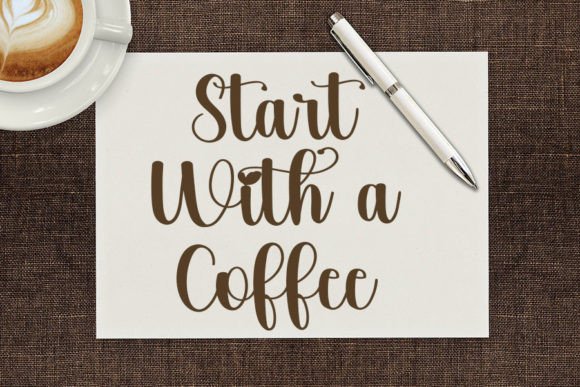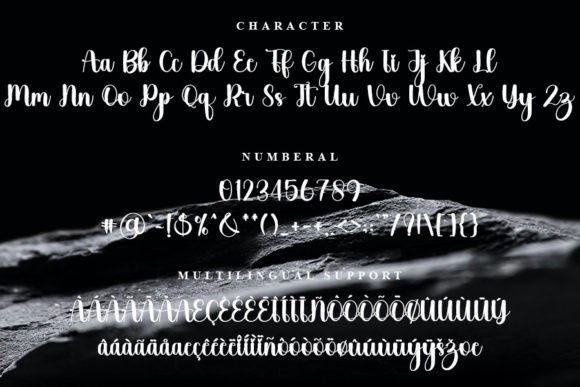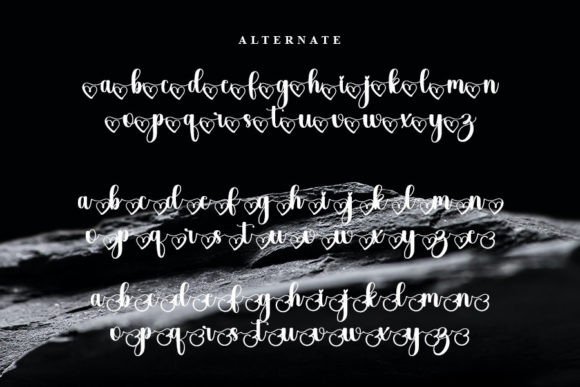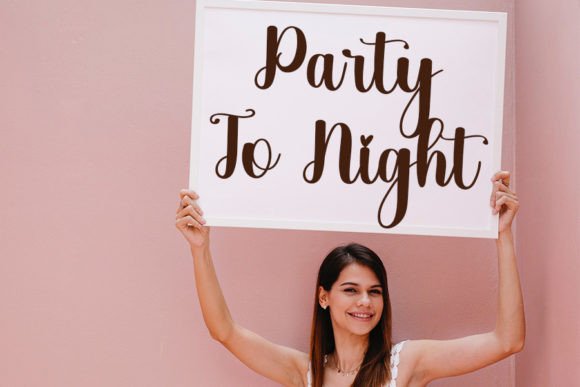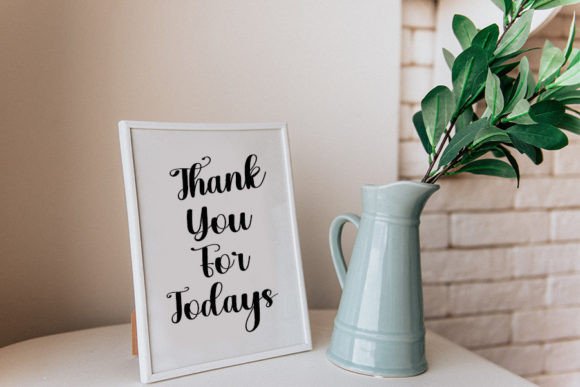
Introducing Clubing Font: Elevate Your Designs with Elegance and Class
In the world of typography, fonts play a crucial role in conveying the tone and personality of a design. For designers and crafters seeking to add a touch of sophistication and elegance to their projects, Clubing Font is an excellent choice. This trendy handwritten font boasts a contemporary atmosphere and impeccable form, inspired by timeless classic calligraphy.
The Inspiration Behind Clubing Font
Clubing Font draws inspiration from traditional calligraphy, with a modern twist. The result is a font that exudes elegance and class, perfect for designers looking to create stunning visual content. The font’s design is characterized by its flowing lines, precise letterforms, and a keen attention to detail, making it an excellent addition to any design project.
Key Features of Clubing Font
- Trendy and Contemporary: Clubing Font features a modern design that will make your projects stand out in a crowded digital landscape.
- Elegant and Classy: With its roots in classic calligraphy, Clubing Font brings a level of sophistication to any design.
- Versatile: This font can be used across various design projects, from branding and advertising to packaging and digital media.
- Impeccable Form: Each letterform is carefully crafted to ensure clarity and readability, making it perfect for both headings and body text.
Use Cases for Clubing Font
The versatility of Clubing Font makes it suitable for a wide range of applications. Here are some use cases where Clubing Font can make a significant impact:
- Branding and Logo Design: Create a lasting impression with a font that communicates luxury and sophistication.
- Wedding and Event Invitations: Add a touch of elegance to your invitations and save-the-date cards.
- Packaging Design: Elevate your product packaging with a font that conveys premium quality and style.
- Digital Media: Use Clubing Font in your social media graphics, blog posts, and website headers to create a cohesive and stylish visual identity.
Tips for Using Clubing Font Effectively
To get the most out of Clubing Font, consider the following tips:
- Pair with Neutral Backgrounds: Let the font be the focal point by pairing it with simple, neutral backgrounds.
- Experiment with Colors: While Clubing Font looks great in black or dark colors, don’t be afraid to experiment with other hues to match your brand’s palette.
- Use for Headings and Titles: Take advantage of the font’s elegant design by using it for headings and titles, and pair it with a simpler font for body text.
Clubing Font is a stylish and versatile addition to any designer’s toolkit. Its unique blend of classic calligraphy and modern design makes it perfect for a wide range of projects. Whether you’re looking to create elegant branding, stylish packaging, or sophisticated digital media, Clubing Font is sure to elevate your designs and leave a lasting impression.